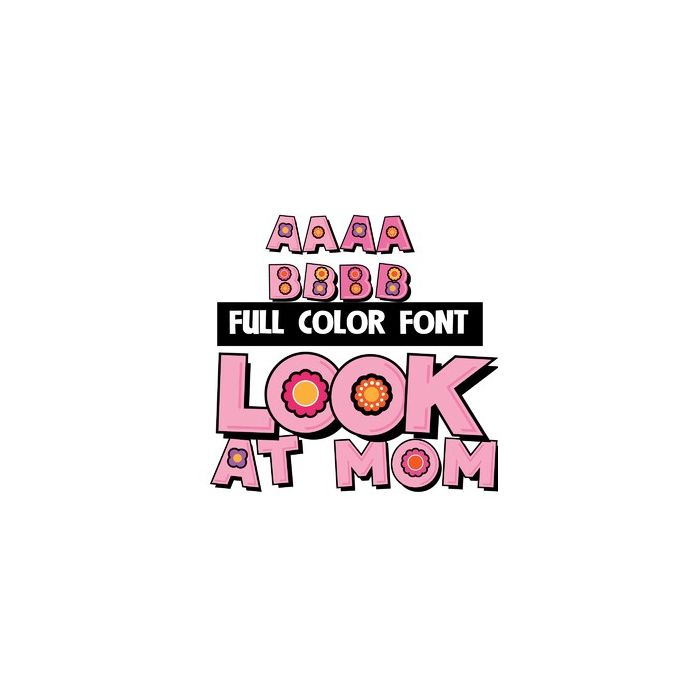
This full-color font features blocky sans serif lettering in pink with shadows and flowers. There is an alt version in a different color of pink that you can access through Silhouette's or your system's glyph map.